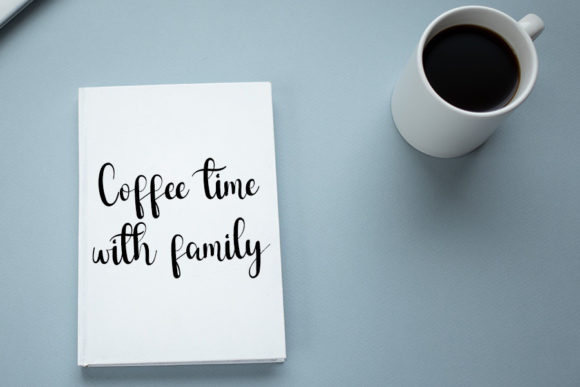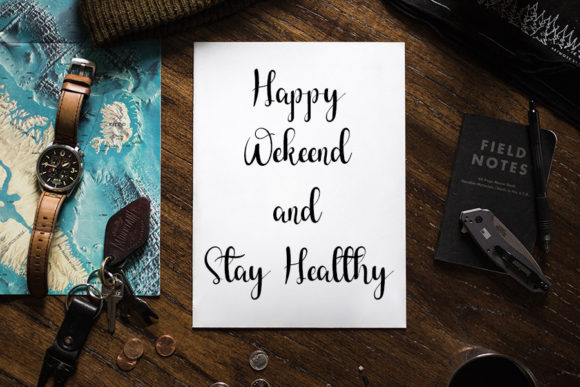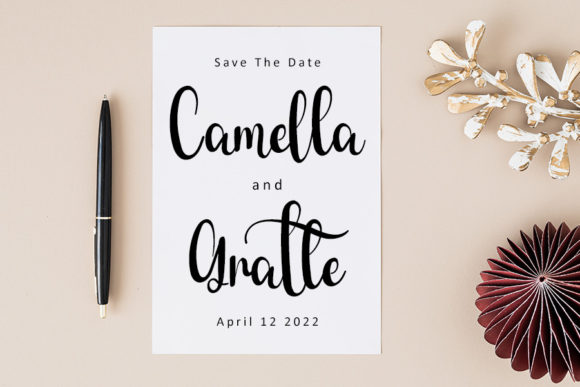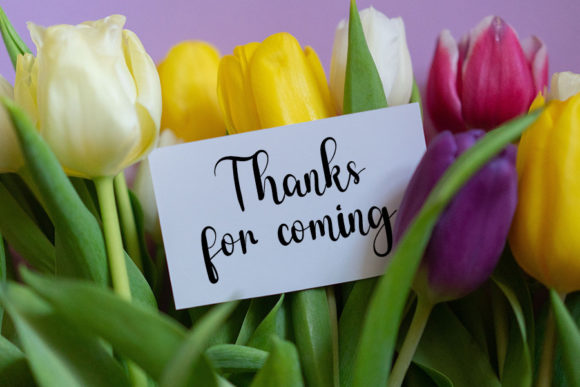
Introduction to Gold Glitter Font
Gold Glitter is a trendy handwritten font with a contemporary atmosphere and impeccable form, inspired by a timeless classic calligraphy.
It will add elegance and class to any of your design projects This font can be used to write various kinds of products according to the aspect of each need.
Key Features of Gold Glitter Font